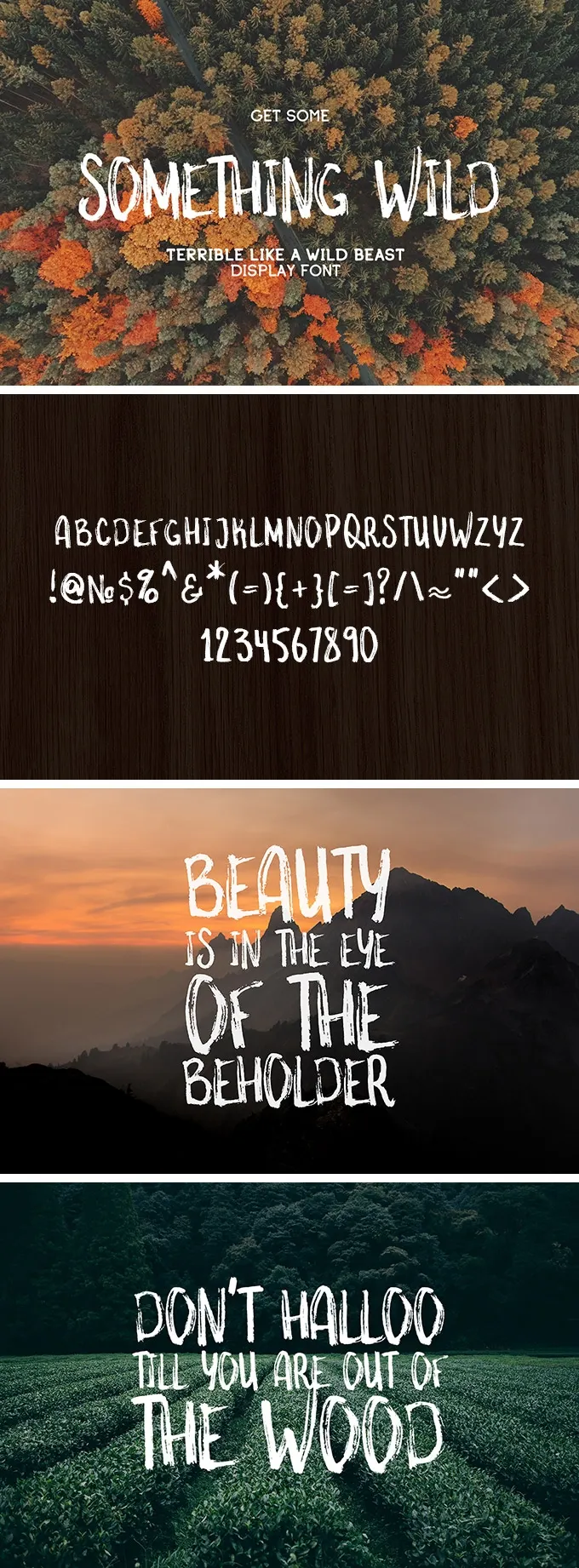
Something Wild Free Font
We have Something Wild for you today! It is a gorgeous handwritten font with a genuine wild spirit. Moreover, the brush effect creates some additional careless mood of a creative freedom.
Just the right thing for you if you want to add some raw feeling to your design! The font comes in all popular formats, so take the thoughts of technical compatibility out of your head forever. Better think of how outstanding this typeface will look in your web design projects, logo designs, apparel ideas, and commercial pamphlets!